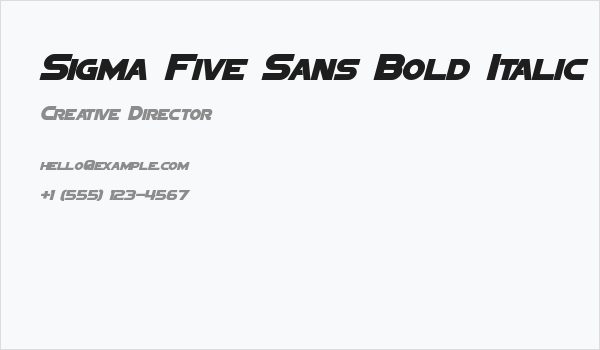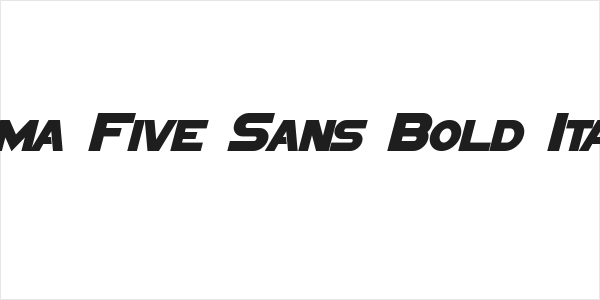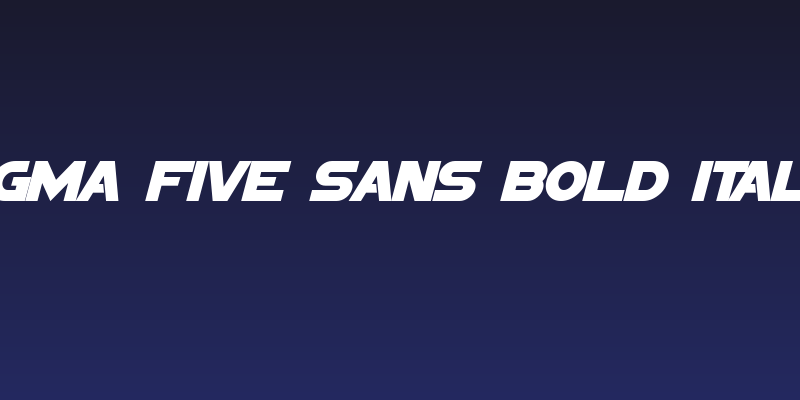
Sigma Five Sans Bold Italic Font
Sigma Five Sans Bold Italic Description
This typeface exhibits a bold and dynamic style with a distinct italic slant, giving it a sense of motion and energy. The characters are sans-serif, featuring clean lines and a modern aesthetic. The bold weight enhances its presence, making it suitable for impactful designs. The italic angle is pronounced, adding a sleek and contemporary feel. The font maintains a consistent stroke width, contributing to its uniform appearance. The character spacing is tight, which reinforces its compact and cohesive look. This font is ideal for projects that require a strong and assertive visual statement.
| Proposed Projects | Ideal for sports branding, dynamic posters, modern advertising, and bold headlines. |